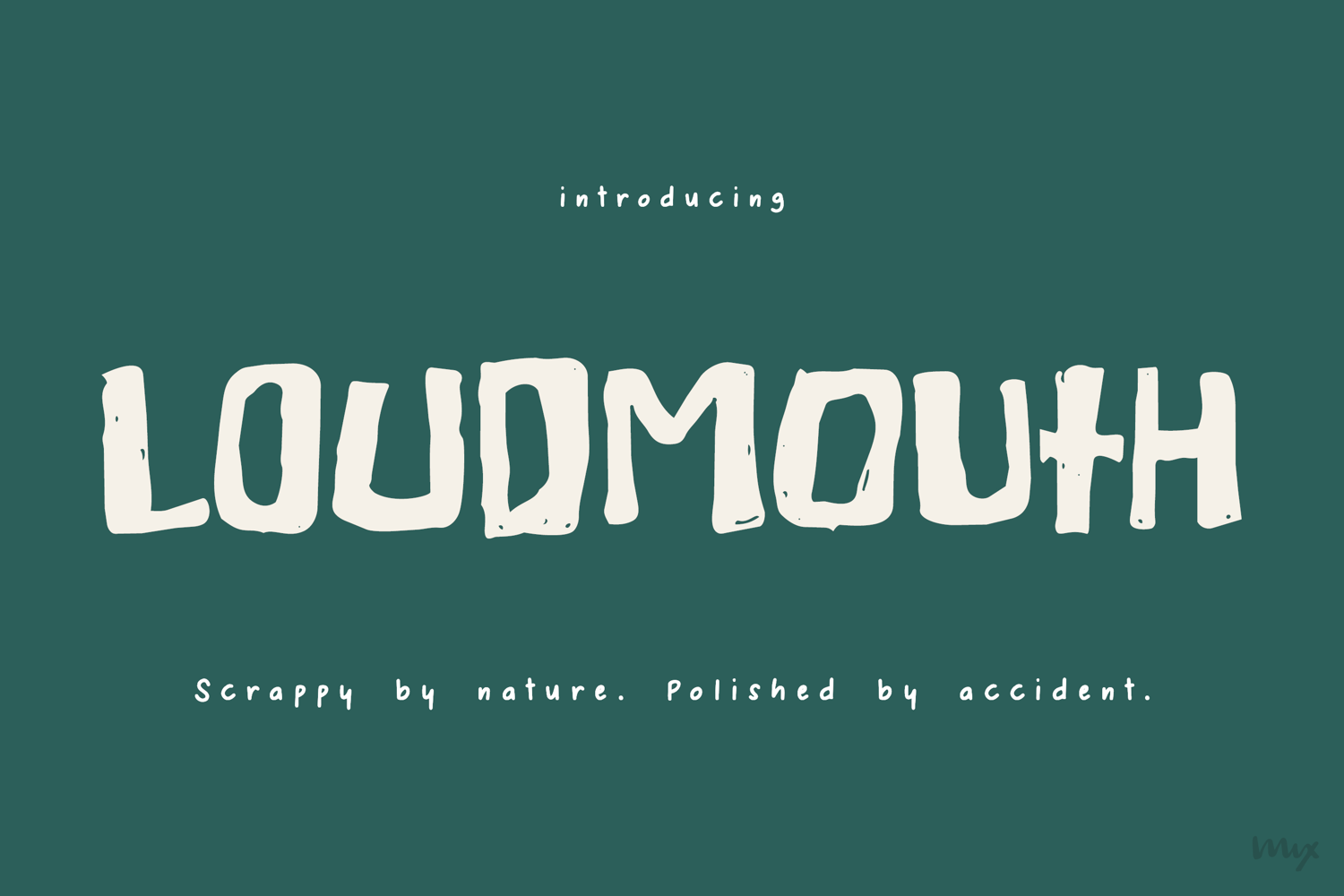
Loudmouth - Scrappy Decorative Font
Mix Loudmouth is scrappy. Hand-drawn, rough around the edges, and makes no apologies for either. But set a word in it and something unexpected happens — every letter falls into the next like it was written that way on purpose. Natural and unclean, but somehow still polished.
Each letterform has its own weight and width. Set a word and the letters kern into tight, organic shapes that feel drawn rather than typed. That’s not a feature you turn on. It’s just how it was built.
Made for book covers, logotypes, zine titles, greeting cards, and poster headlines. One word, big, center stage.